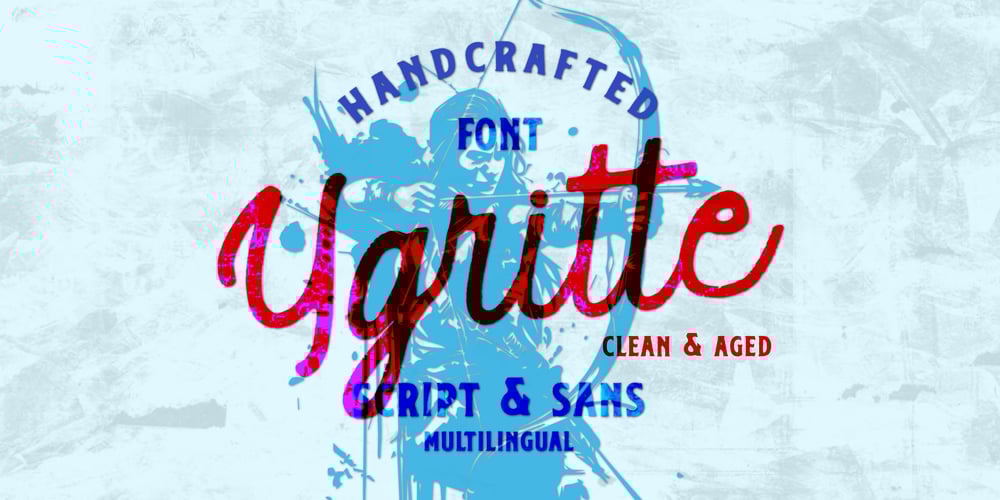
Ygrytte Font Family was designed by Dicky Fuadi, Cherly Nugroho and published by Ethylene. Ygrytte contains 2 styles and family package options. Unleash your wild side with Ygrytte, a distinctive font duo that harmonizes the elegance of serif with the simplicity of monoline script. Ygrytte evokes a raw, untamed aesthetic courtesy of its edgy rough texture, perfect to infuse your designs with bold, gritty charm. This versatile font caters to a plethora of design avenues — from striking streetwear and captivating covers for books and magazines, to eye-catching YouTube thumbnails and engaging social media posts. Also, an impeccable fit for compelling posters, brochures, and packaging that demand a unique touch. With the Ygrytte font pair, you’re equipped to grace any design concept with an exclusive street-art flair. Harness the power of Ygrytte to make your design ideas spring to life.